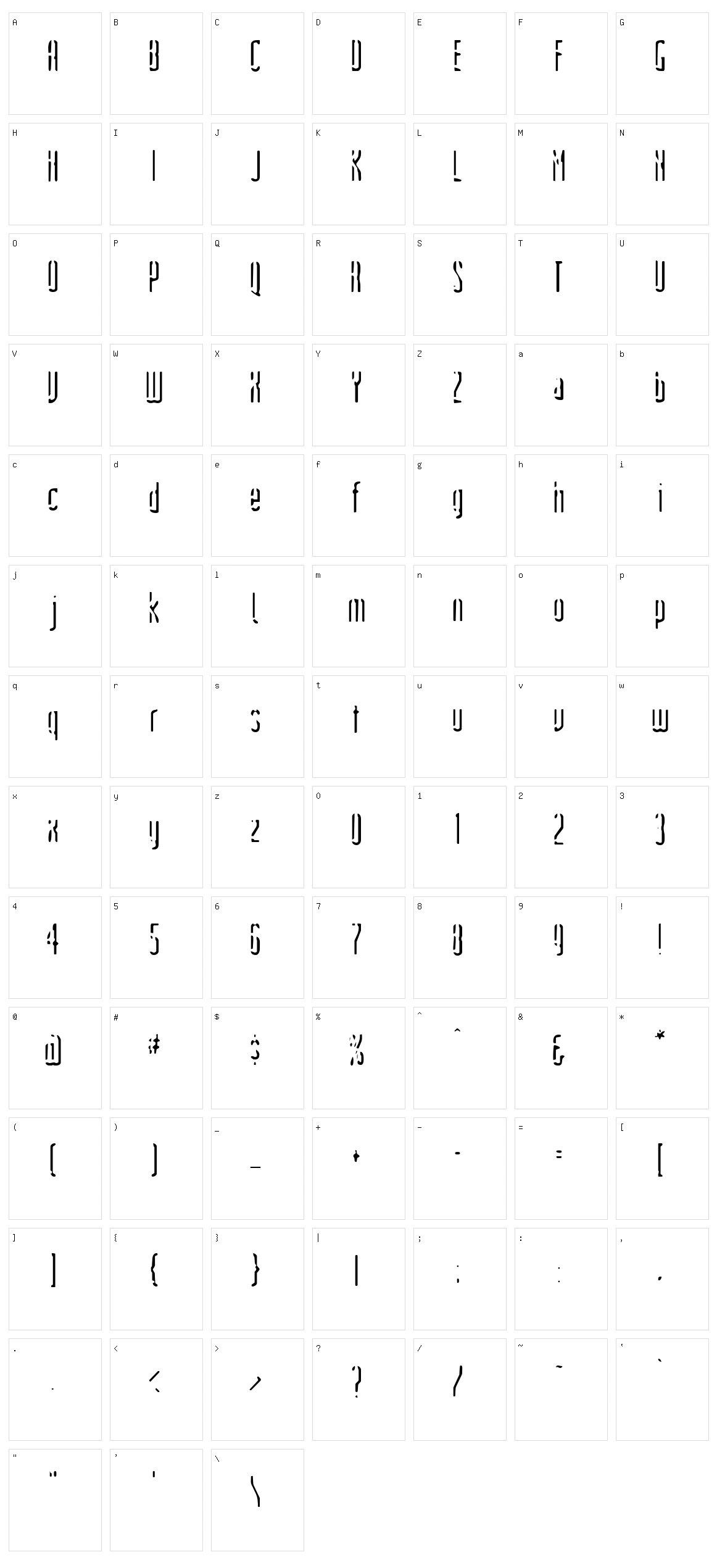
The free font Devil's Handshake is carefully designed by StimulEye Fonts, showcasing a thoughtful balance of creativity and usability and falls under the Eroded font style. When you download the ZIP file, it contains only 13.53 KB of font files, making it lightweight and quick to download. Please review the license details below to understand permitted usage and distribution rights. If license information is not available, we recommend using this font for personal projects only or contacting the author directly for commercial usage permissions.